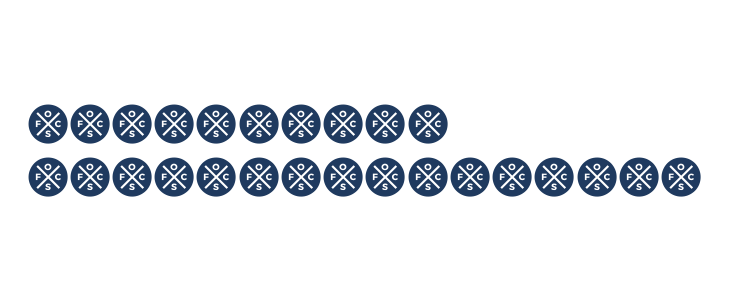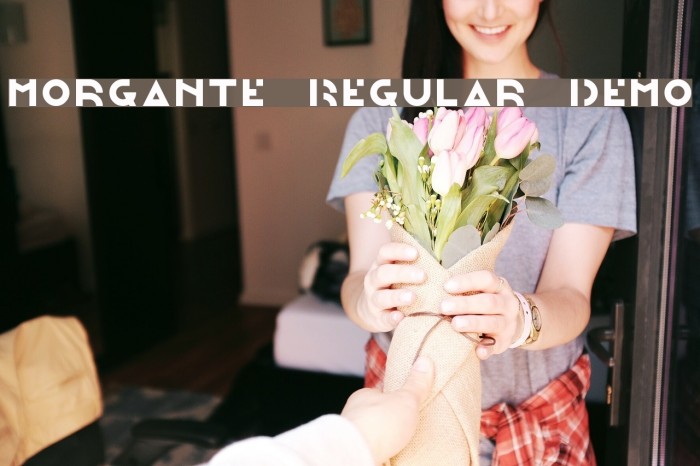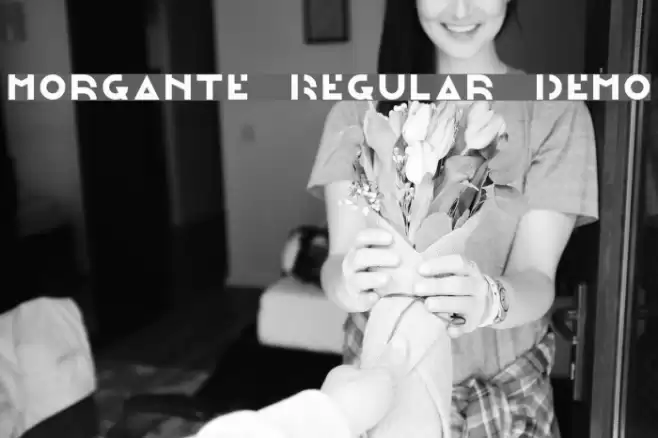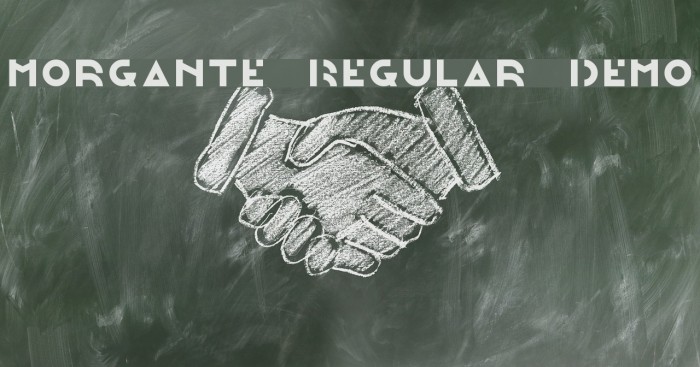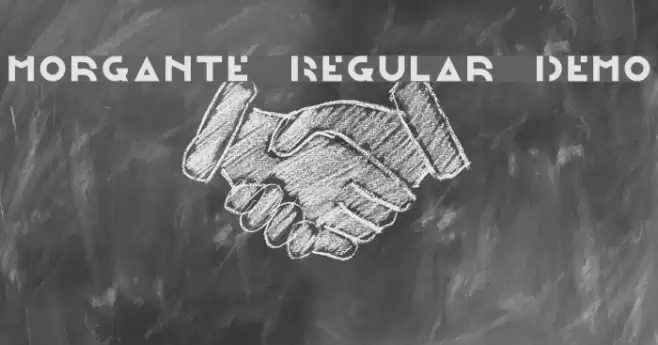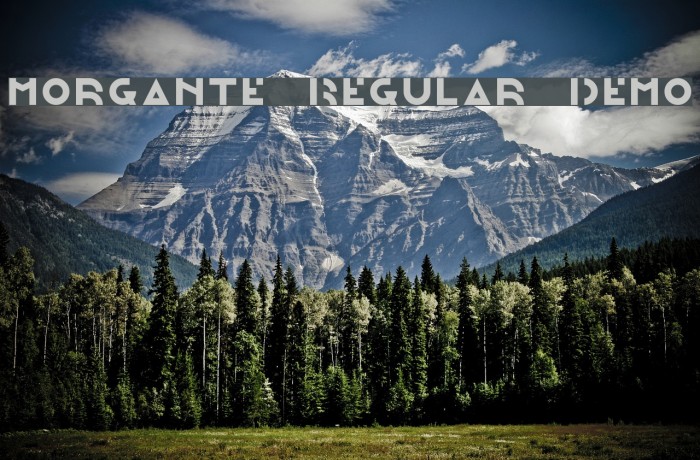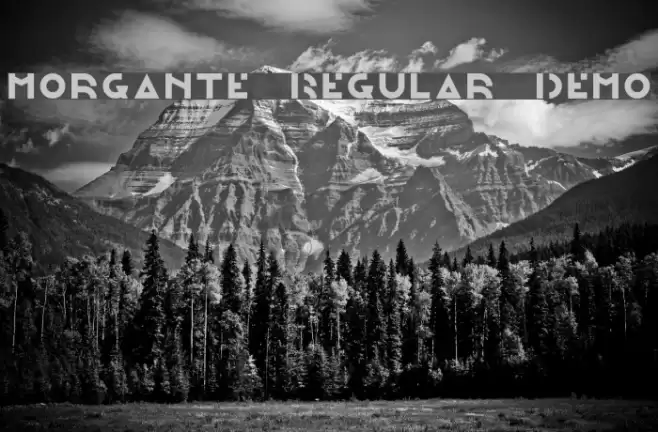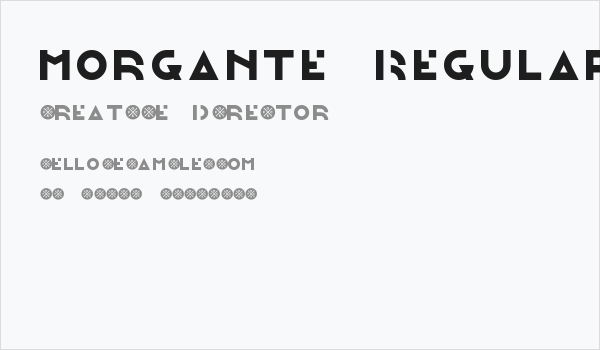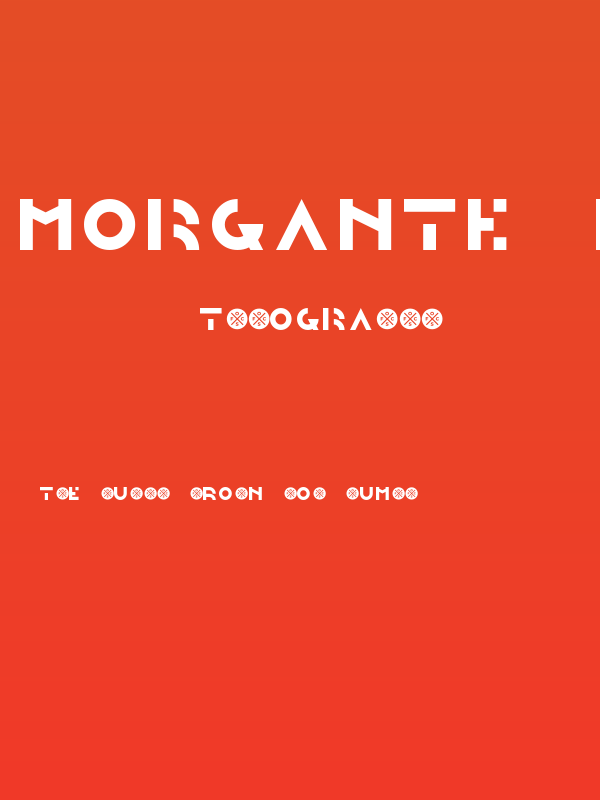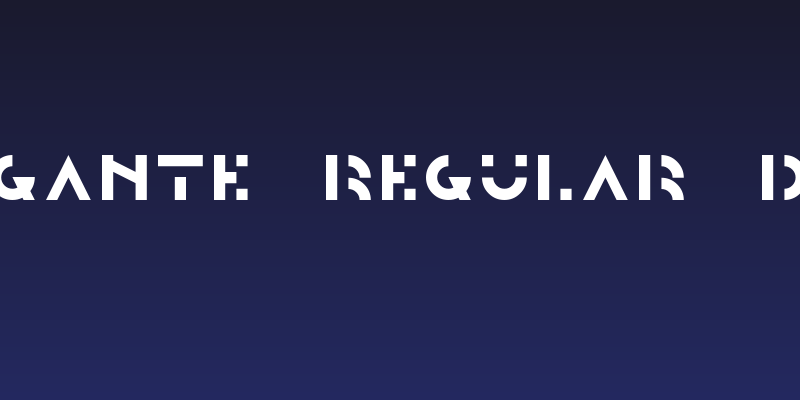
Morgante Regular Demo Font
Morgante Regular Demo Description
This font features a bold, geometric design with a strong emphasis on angular shapes and sharp edges. The characters are constructed with a mix of straight lines and circular forms, creating a dynamic and modern appearance. The uppercase letters are particularly striking, with a consistent height and width that contribute to a cohesive look. The lowercase letters maintain the geometric theme, though they are slightly more compact. The numbers and special characters follow the same design principles, ensuring uniformity across the font. This font's unique style makes it suitable for projects that require a contemporary and eye-catching typeface.
| Proposed Projects | Ideal for branding, posters, headlines, and any design project that requires a modern and striking typeface. |